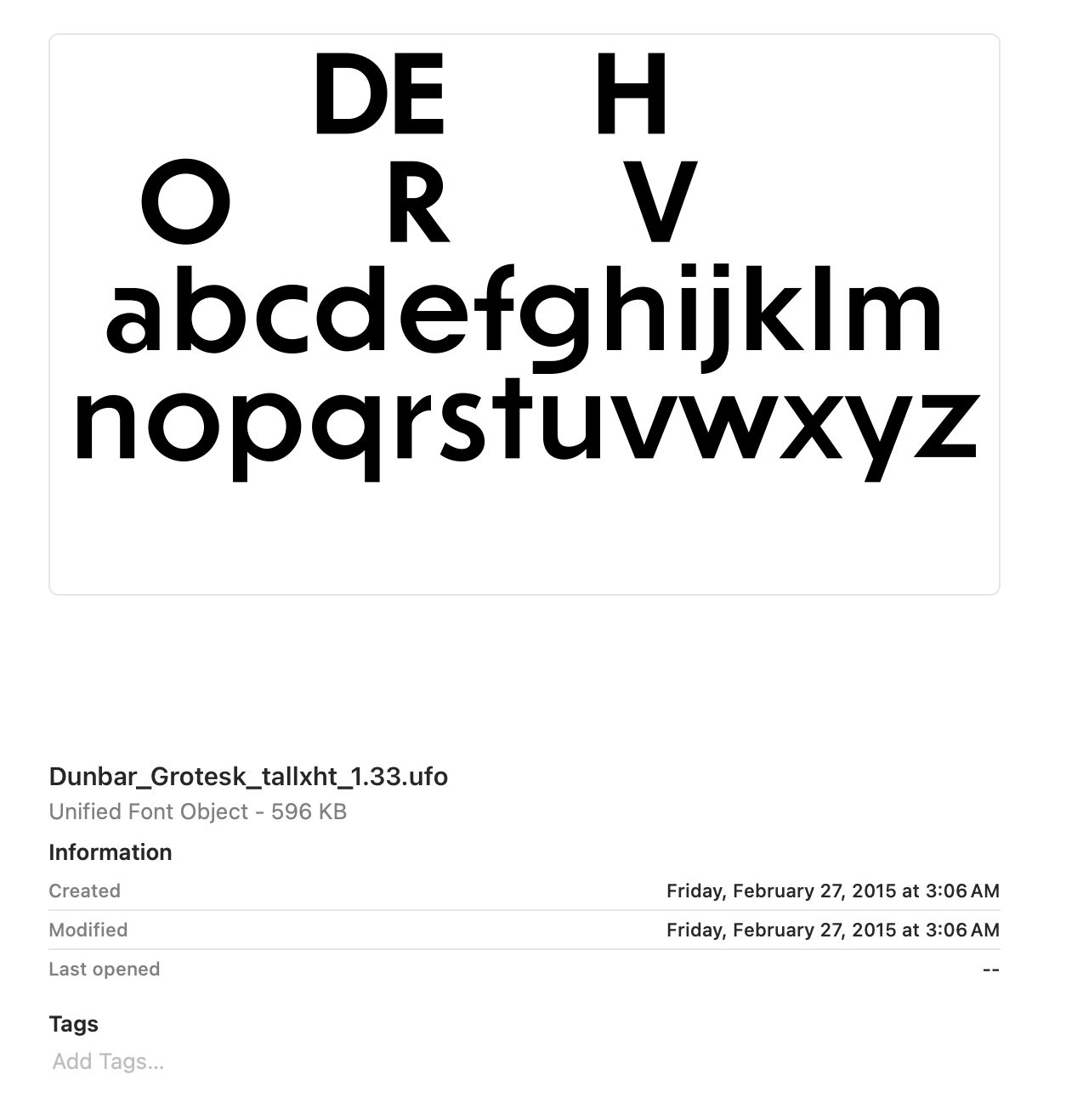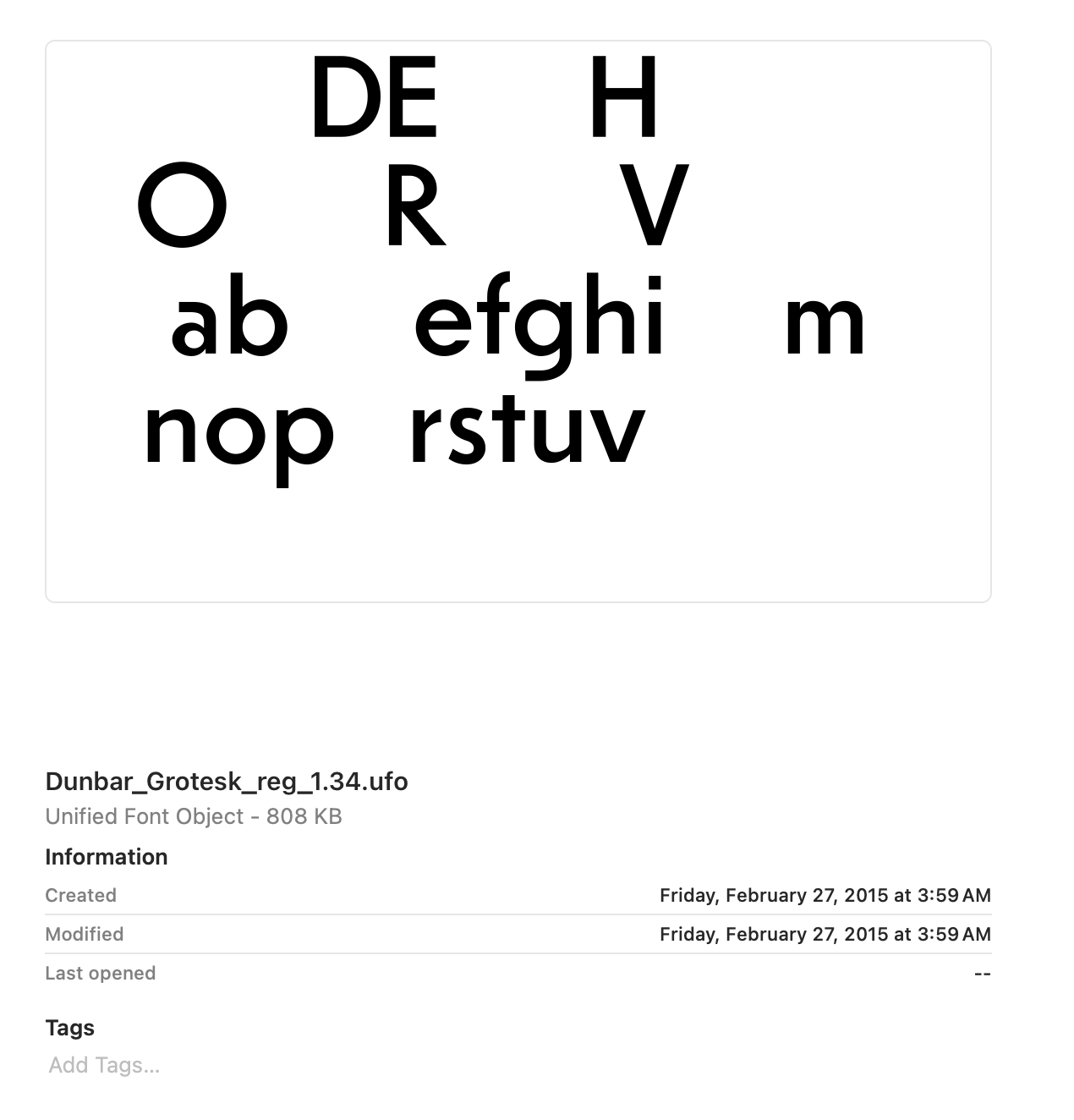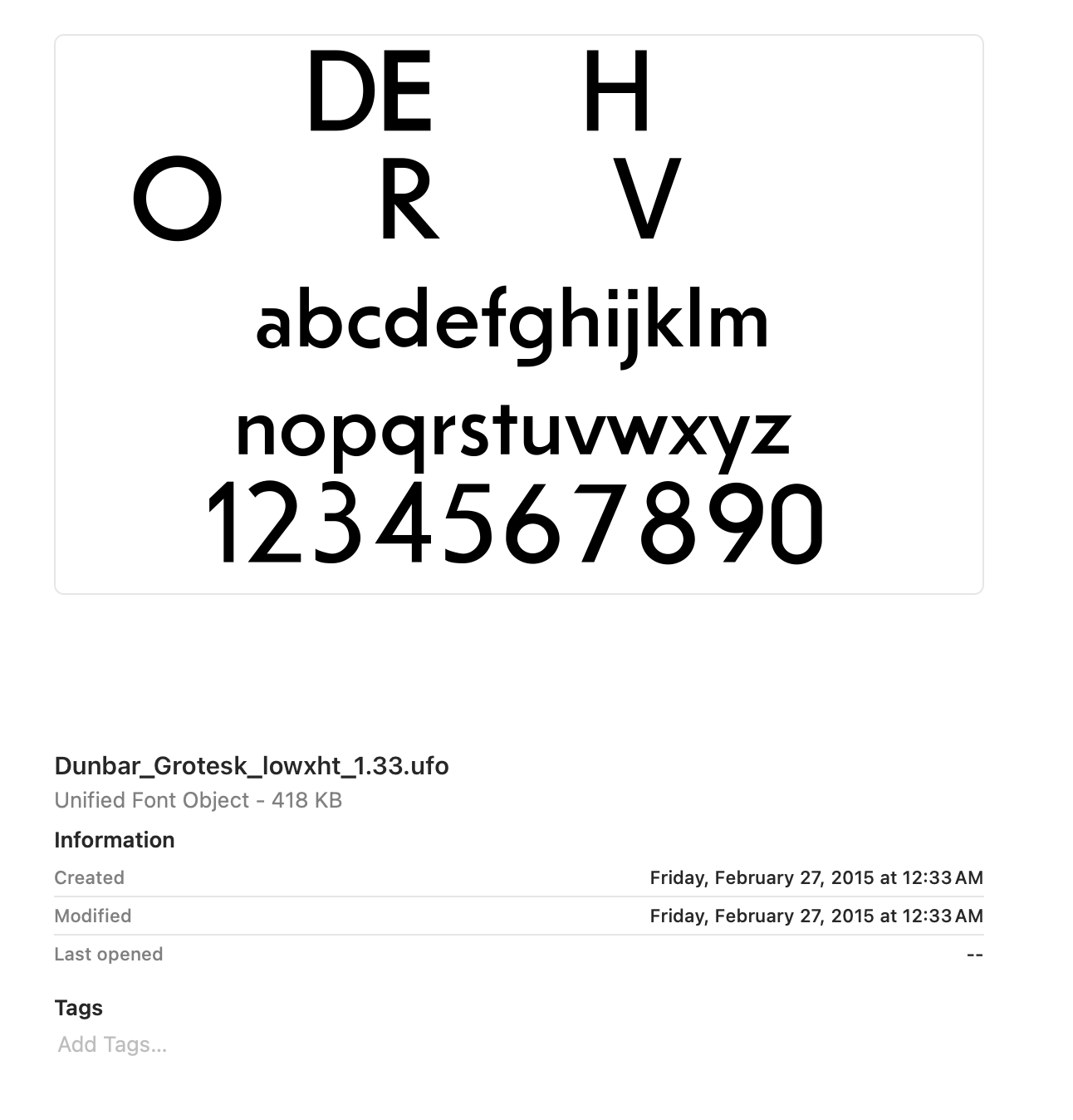
Dunbar_Grotesk_lowxht_1.33.ufo & Dunbar_Grotesk_reg_1.34.ufo & Dunbar_Grotesk_tallxht_1.33.ufo (started working with the concept of 3 different x-heights***)